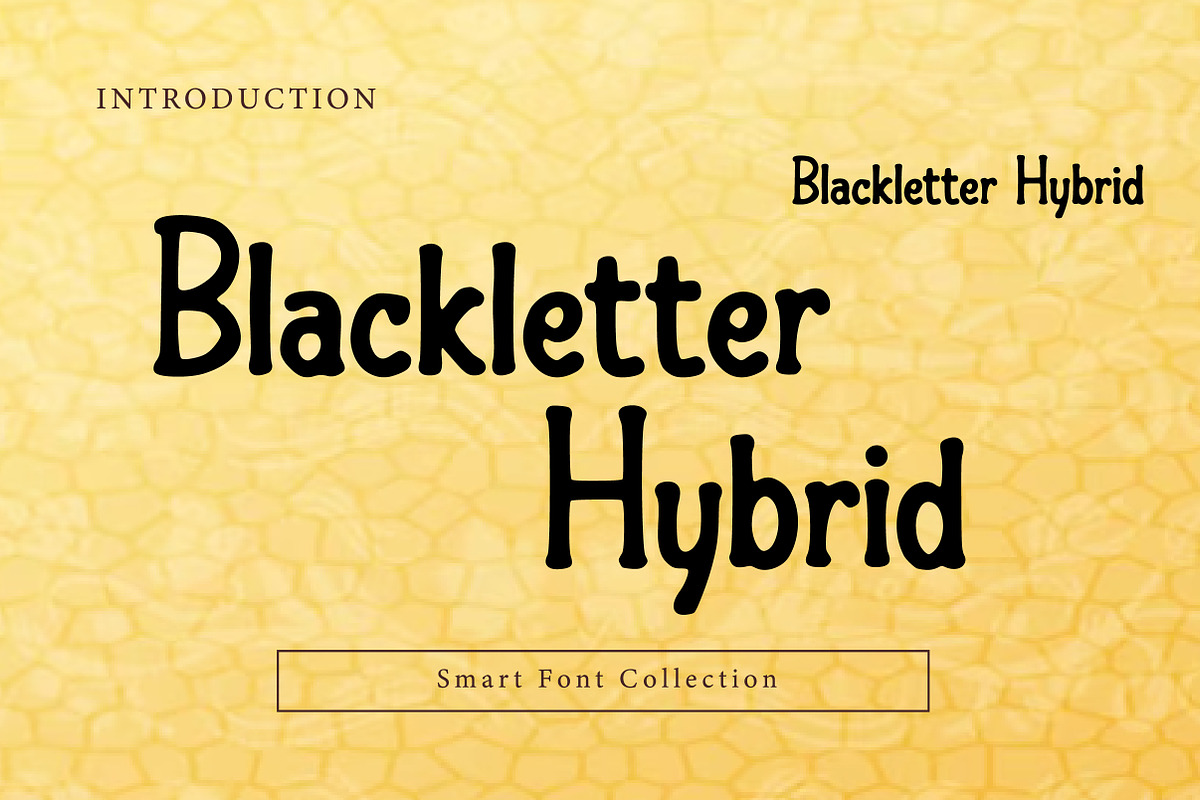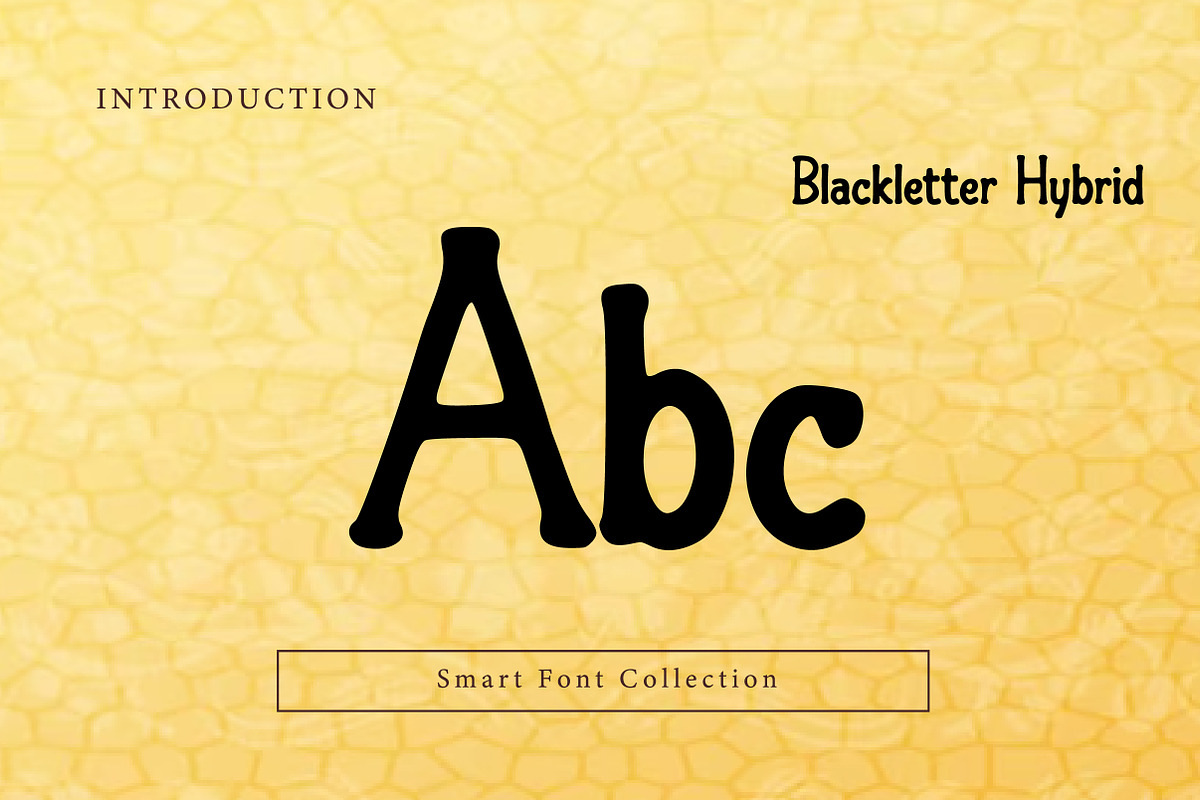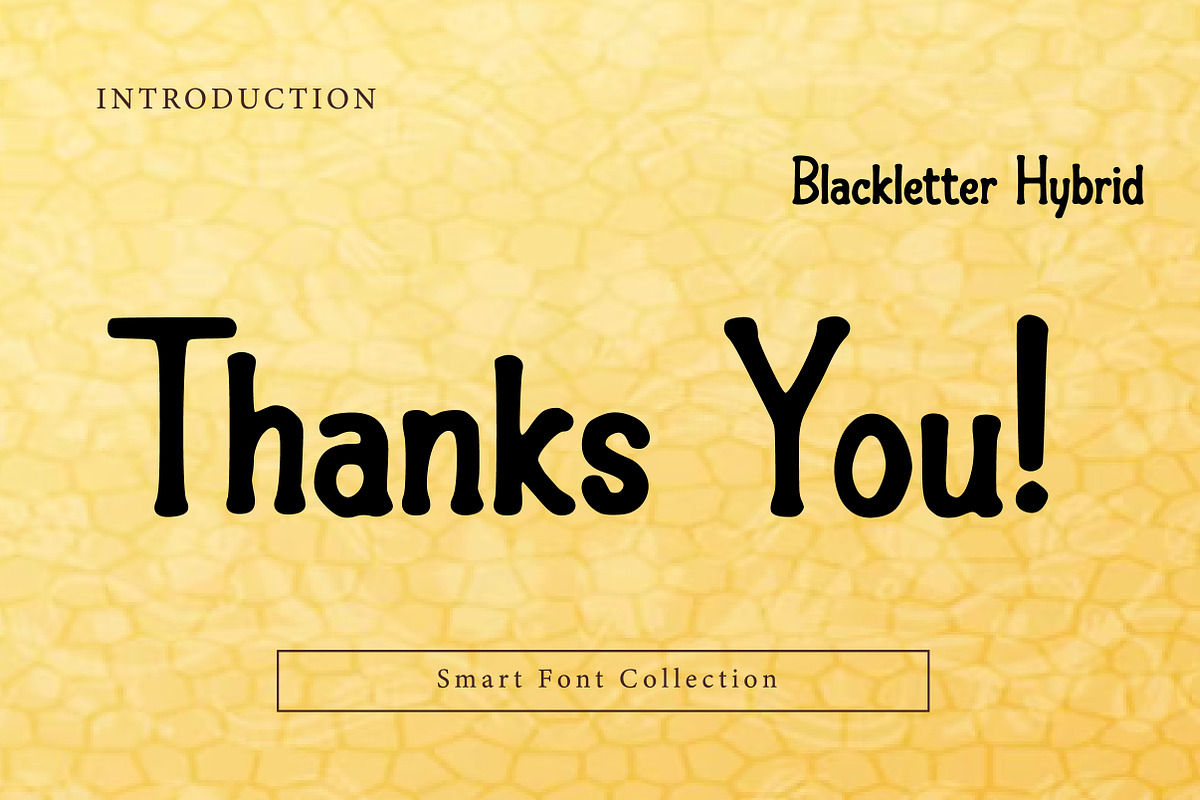
Blackletter Hybrid
Blackletter Hybrid is a distinctive display typeface that merges traditional blackletter influences with modern serif and decorative elements. It maintains the bold presence and historical character of gothic lettering while softening the structure for improved readability and contemporary appeal. This hybrid style makes it ideal for logos, headlines, posters, branding, album covers, apparel, and creative projects that seek a balance between classic gothic strength and modern versatility.